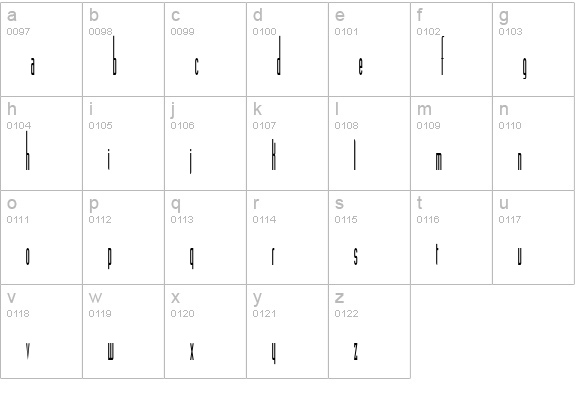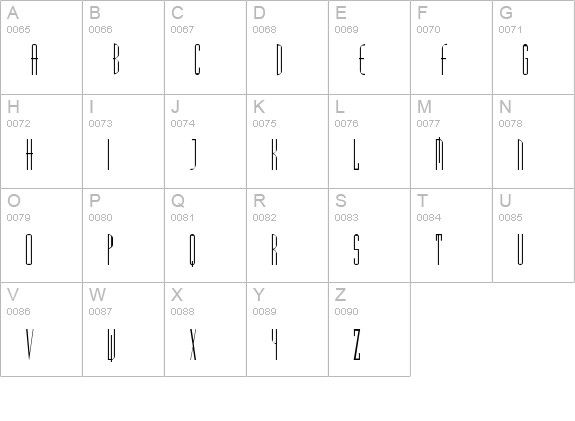
Madrid2Plain Font Details
Madrid2Plain is a stunning font that exudes elegance and sophistication. This font is perfect for those looking to add a touch of class to their designs. With its clean lines and minimalist design, Madrid2Plain is versatile and can be used for both headlines and body text. What sets Madrid2Plain apart from other fonts is that it is absolutely free. That's right, you read that correctly. This amazing font is freely available to download at FontsMarket.com. You no longer have to worry about breaking the bank to access high-quality fonts for your projects. Whether you're designing a logo, creating a website, or working on a print project, Madrid2Plain will elevate your work to the next level. Its sleek and modern look will make any design stand out from the crowd. The carefully crafted letterforms ensure legibility at any size, making Madrid2Plain suitable for both digital and print media. With Madrid2Plain, you have the freedom to experiment and unleash your creativity. The font's versatility allows it to seamlessly integrate into any design style, whether it's a modern and minimalist aesthetic or a more traditional and classic look. So why wait? Don't miss out on the opportunity to enhance your designs with Madrid2Plain. Head over to FontsMarket.com and download this incredible font for free. It's time to take your design projects to new heights with the elegance and sophistication of Madrid2Plain.